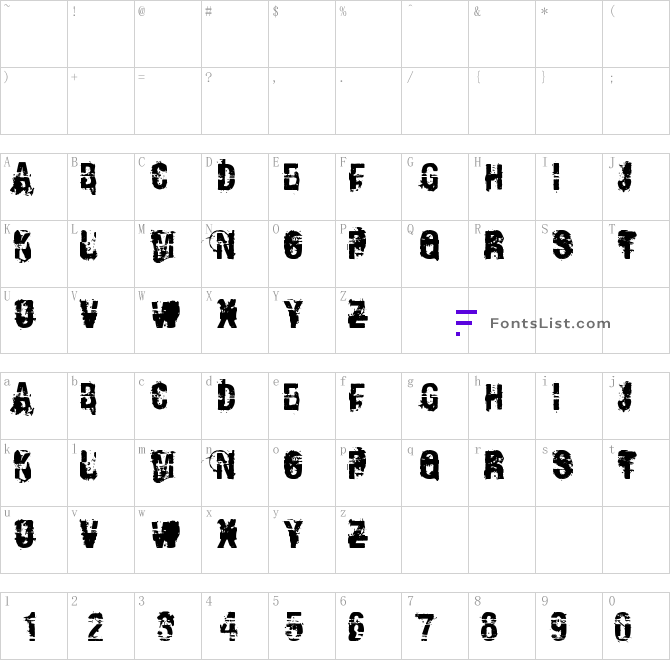
- Font Name:Andy Dufresne
Andy-Dufresne.ttf is a very beautiful artistic font, Andy-Dufresne.ttf is widely used in the design and printing of various books and pictures,Andy-Dufresne.ttf has a strong visual impact,Andy-Dufresne.ttf is a commonly used font in newspapers, magazines and books, and is used in posters, e-commerce Poster design, store design, logo design, font design and other fields.Andy-Dufresne.